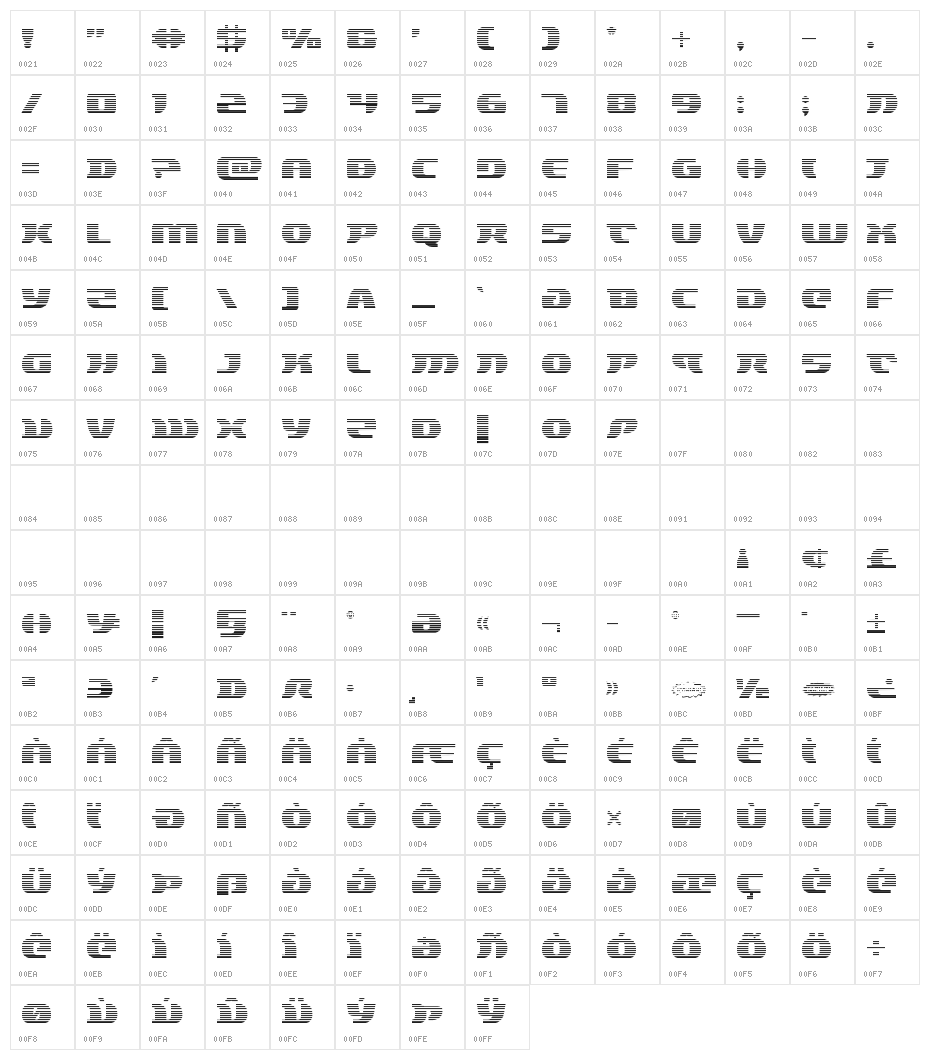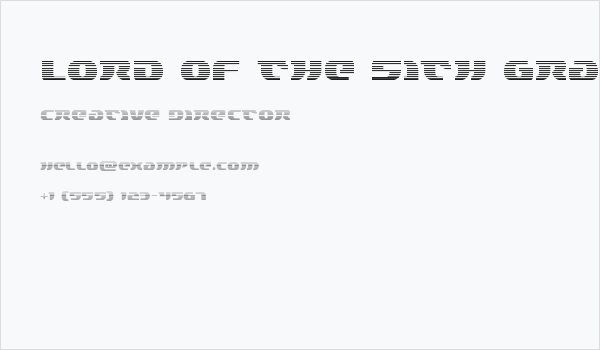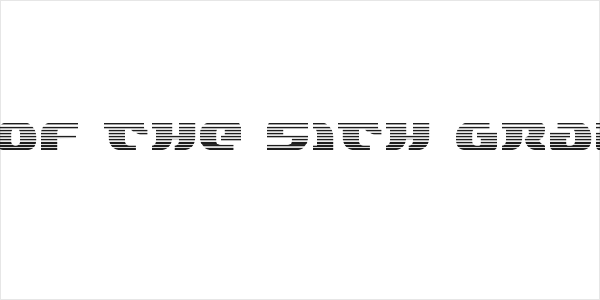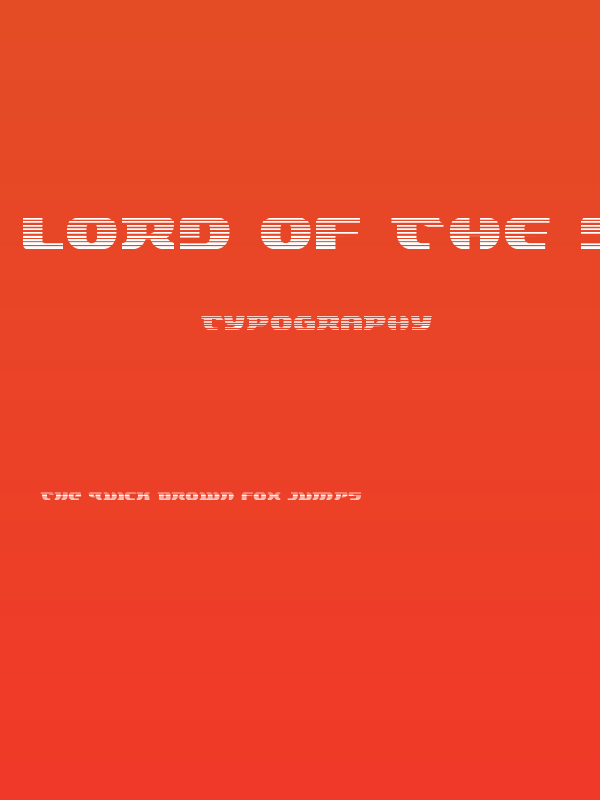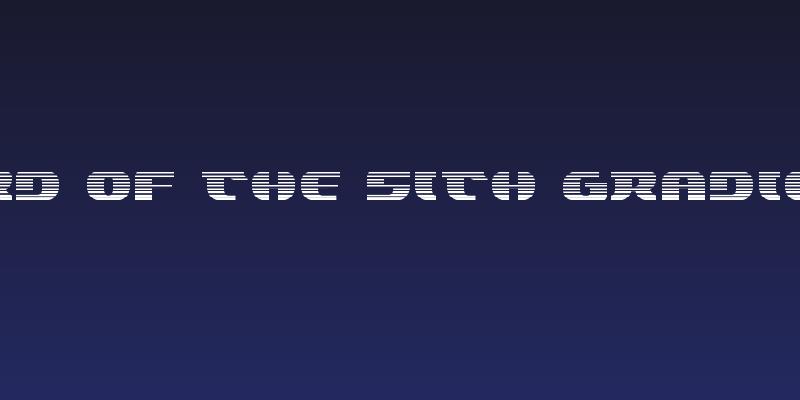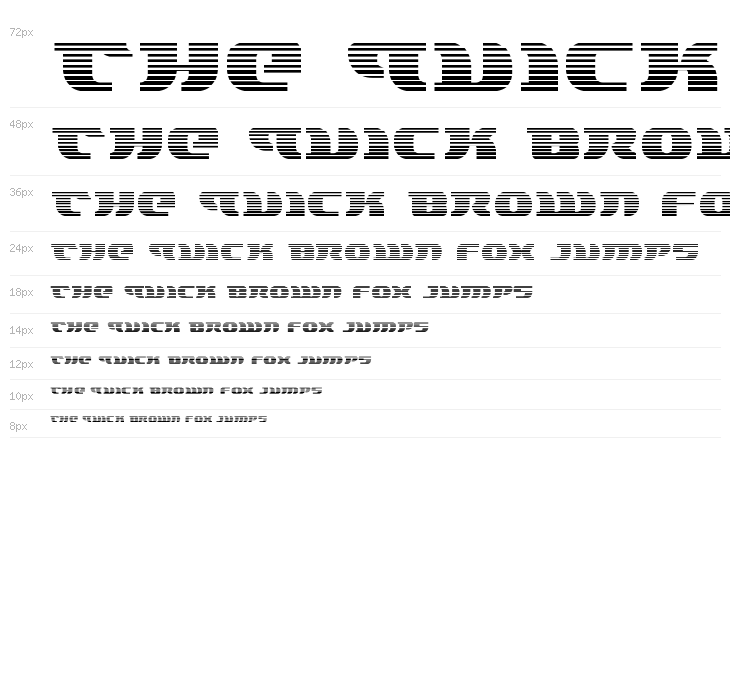
Lord of the Sith Gradient Font
Lord of the Sith Gradient Description
This font features a futuristic and bold design with a distinct horizontal line pattern running through each character. The uppercase and lowercase letters maintain a consistent width, giving the font a uniform appearance. The characters are constructed with a series of parallel lines, creating a sense of movement and energy. This style is reminiscent of digital or sci-fi themes, making it ideal for projects that require a modern and edgy look. The numbers and special characters follow the same design principles, ensuring a cohesive visual experience across all text elements.